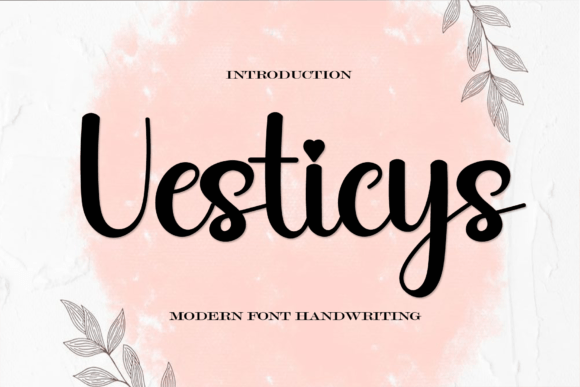
Introduce the World of Vesticys: A Classic Handwritten Script for Timeless Designs
In the realm of typography, where words dance on screens and pages, there exists a font that captivates hearts with its classicism and elegance - Vesticys. Born from the creative genius of RR Studio, this script font is no ordinary typeface; it's an artistic masterpiece, meticulously crafted to evoke emotions and leave a lasting impression.
Journey into the realm of Vesticys, a font that embodies the allure of handwritten letters, each stroke imbued with the charm of individuality. Its free-flowing, organic lines dance across any design, creating a mesmerizing visual symphony that draws eyes and captivates imaginations.
This remarkable font is a virtuoso in the art of flexibility, adapting seamlessly to a myriad of creative endeavors. Whether you're crafting logotypes that demand attention, headlines that command presence, or corporate identities that exude professionalism, Vesticys rises to the occasion with effortless grace.
Harness the power of Vesticys to craft apparel designs that speak volumes, posters that ignite emotions, and music, movie, and game titles that resonate with audiences. Let its timeless elegance grace the pages of magazines and books, imbue comics and cartoons with a touch of whimsy, and add a dash of sophistication to your YouTube, Instagram, and website designs.
With Vesticys as your design companion, the possibilities are boundless. Its versatility knows no limits, making it the perfect font for unleashing your creativity and leaving an indelible mark on the world.
Don't settle for ordinary fonts that fade into the background. Embrace the artistry of Vesticys, a font that captivates, inspires, and transforms your designs into timeless works of art. Its elegant curves, delicate flourishes, and undeniable charm will elevate your creations, leaving your audience spellbound.